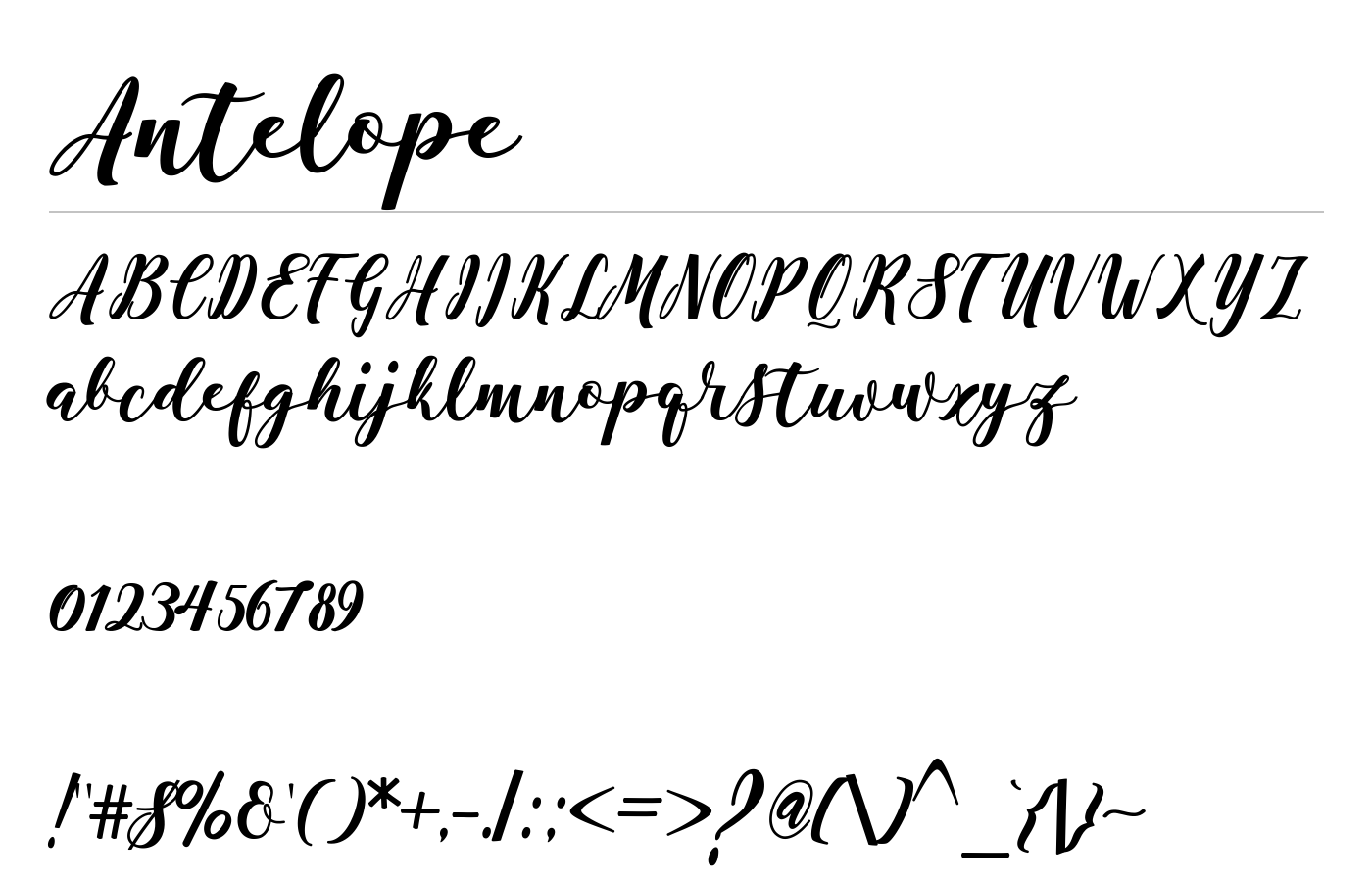
Antelope is an elegant script font with a smooth, flowing style that combines bold and delicate strokes to create a graceful, handwritten look. Its tall x-height and slightly condensed letterforms make it both legible and stylish, perfect for adding a touch of sophistication to invitations, branding, and headlines. This font shines in fashion, luxury, and creative projects where a modern yet personal feel is desired.
Antelope Font
About Antelope Font
| Font family | Antelope Font |